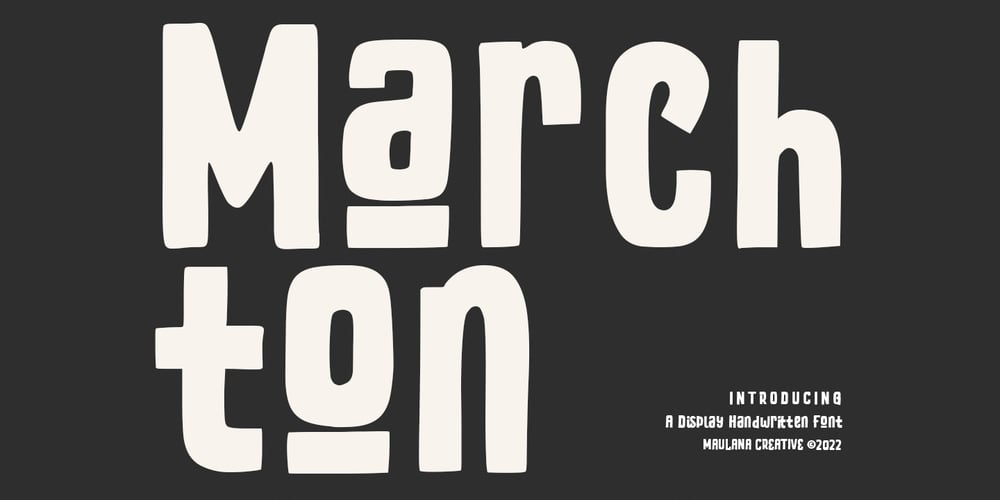
Marchton
Marchton font
Marchton Font Family was designed by Gilang Maulana and published by Maulana Creative. Marchton contains 1 styles and family package options. Marchton is a bold display font. With bold stroke, fun character with a bit of ligatures and alternates. To give you an extra creative work. Marchton font support multilingual more than 100+ language. This font is good for logo design, Social media, Movie Titles, Books Titles, a short text even a long text letter and good for your secondary text font with sans or serif. Make a stunning work with Marchton font. Cheers, Maulana Creative